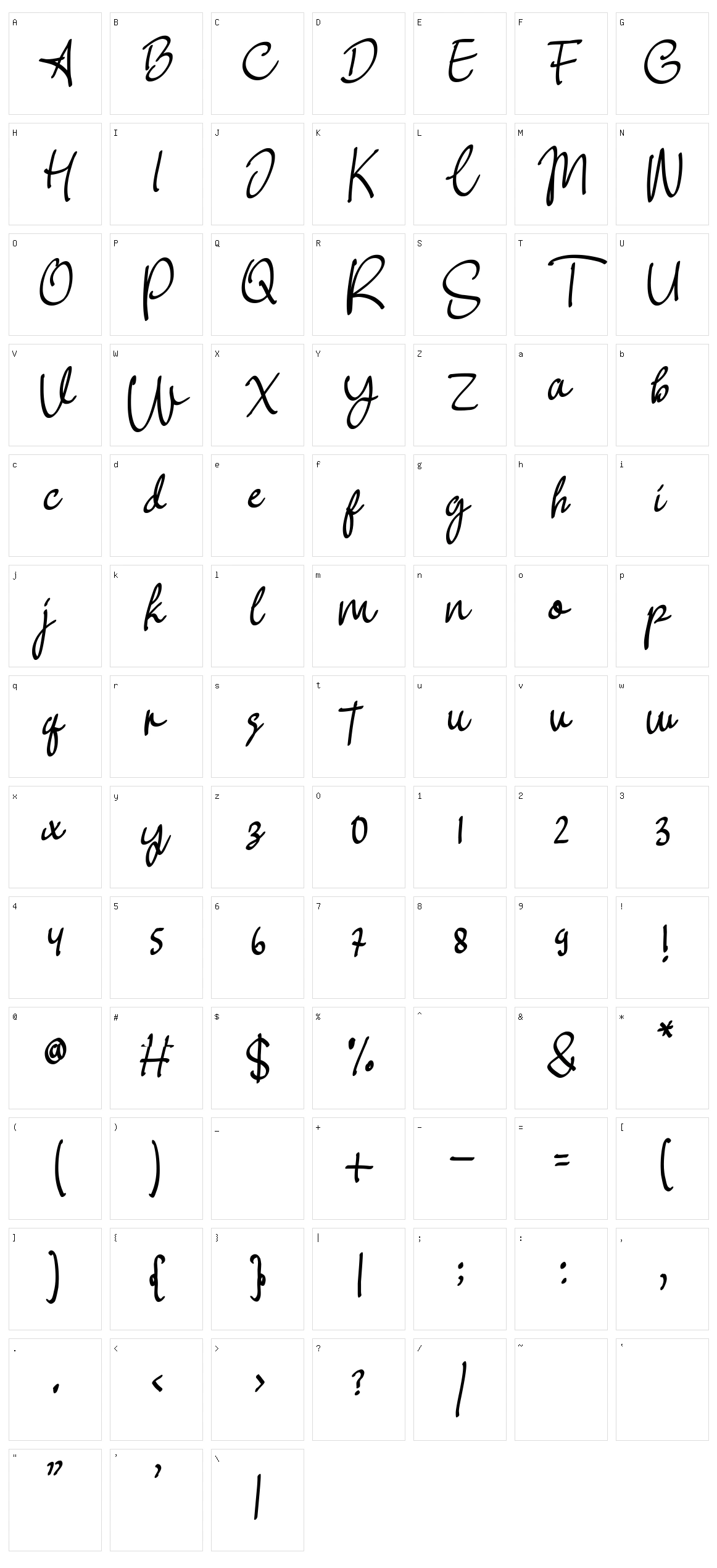
The free font Perfect Love is carefully designed by share font, showcasing a thoughtful balance of creativity and usability and falls under the Script font style. When you download the ZIP file, it contains only 58.79 KB of font files, making it lightweight and quick to download. Please review the license details below to understand permitted usage and distribution rights. If license information is not available, we recommend using this font for personal projects only or contacting the author directly for commercial usage permissions.